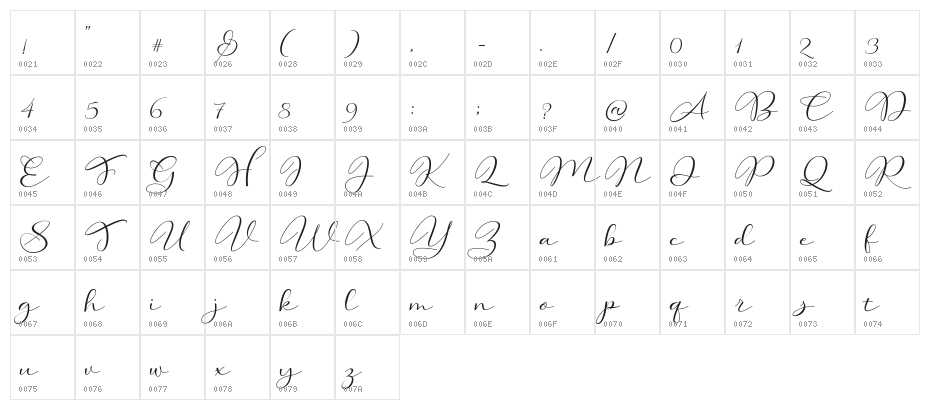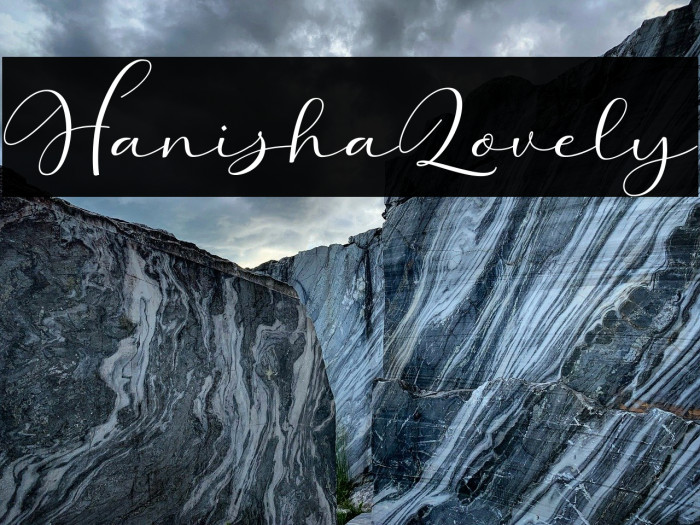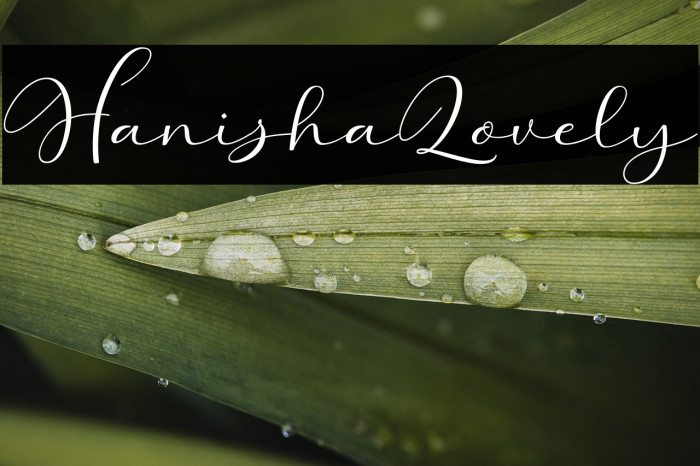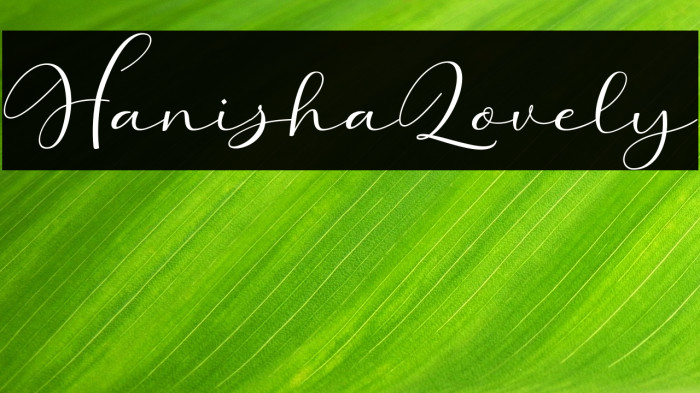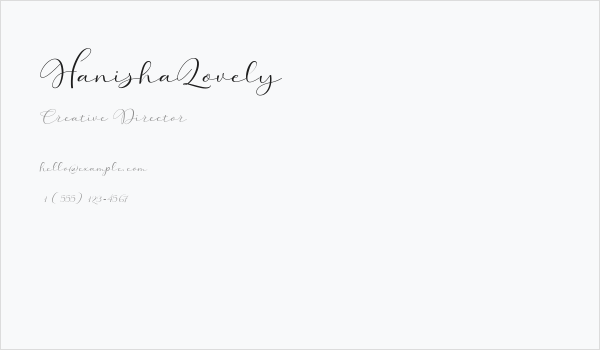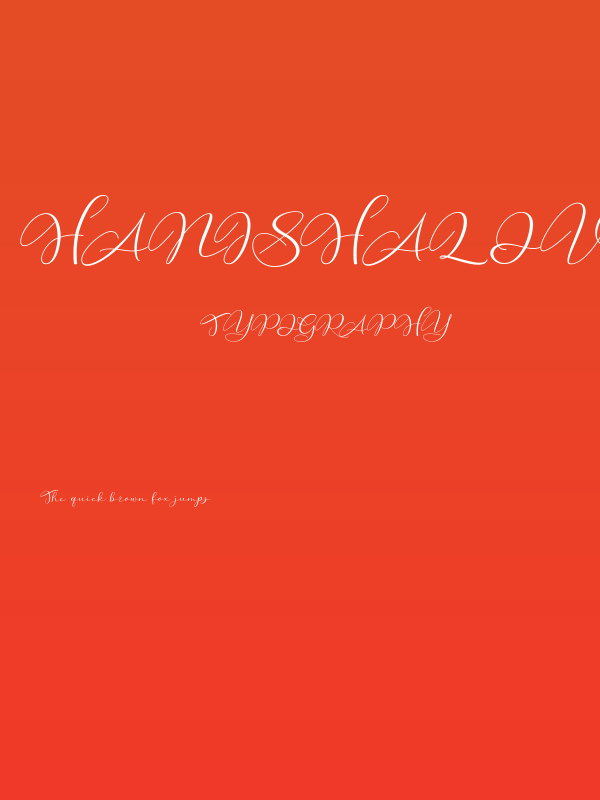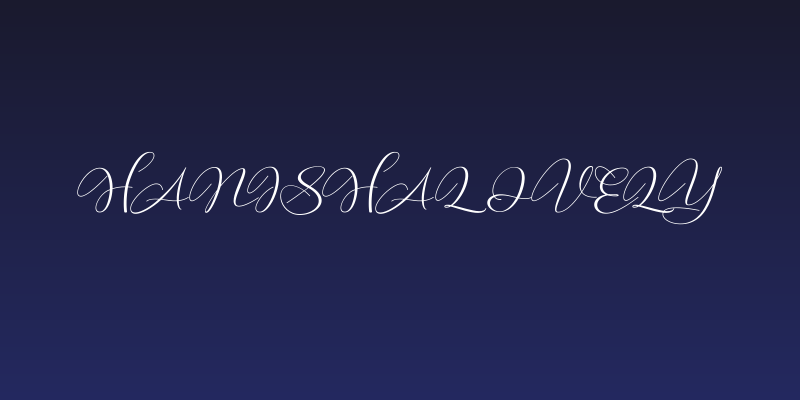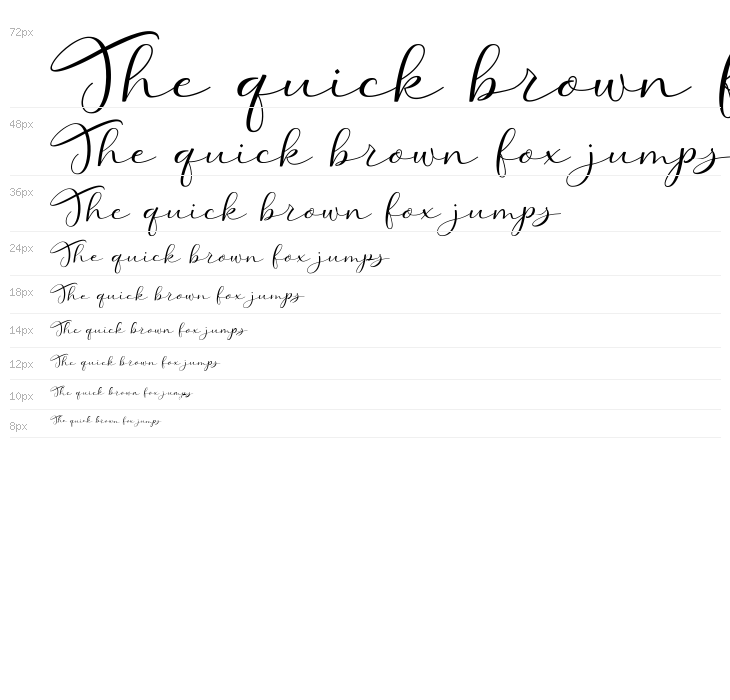
HanishaLovely Font
HanishaLovely Description
This elegant script font features a flowing, cursive style with intricate loops and swashes. The uppercase letters are ornate, with each character exhibiting unique flourishes that add a touch of sophistication. The lowercase letters maintain a consistent flow, enhancing readability while preserving the decorative nature. Numbers and special characters are designed to complement the overall aesthetic, making this font suitable for formal invitations, branding, and artistic projects. The font's delicate strokes and graceful curves evoke a sense of elegance and refinement, perfect for conveying a sense of luxury and style.
| Overall Style | Elegant, Decorative |
| Use Case | Headlines, Invitations, Branding |
| Proposed Projects | Ideal for wedding invitations, luxury branding, artistic projects, and elegant stationery. |